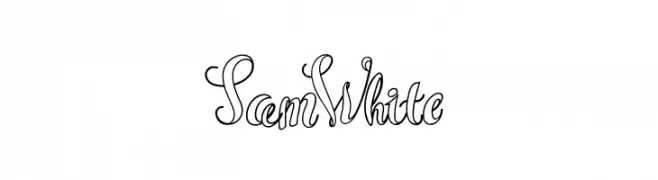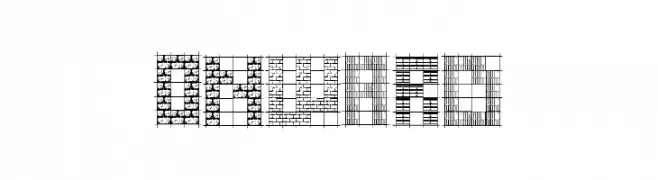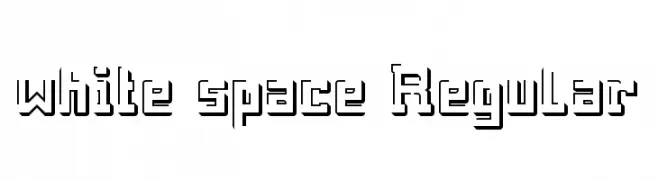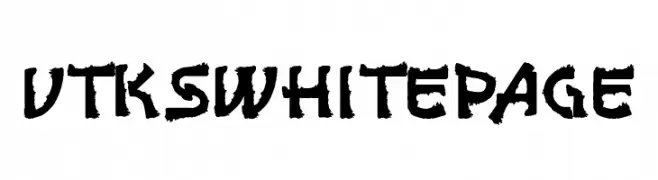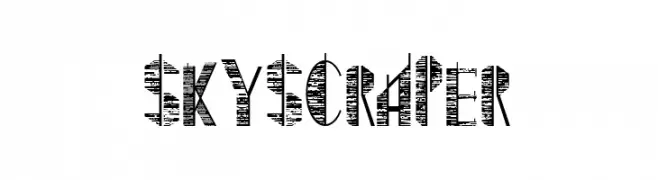
A mechanical, structured font inspired by vintage flip clocks.
An elegant, flowing script font with whimsical loops and curves.
A textured, geometric font with a rugged, architectural style.
A modern, geometric font with a 3D shadow effect and bold, angular characters.
A bold, expressive handwritten font with fluid curves and thick strokes.
A three-dimensional cubic font with a modern, architectural style.
A bold, textured font with a hand-drawn, grunge style.
A modern, architectural font resembling skyscrapers with intricate detailing.